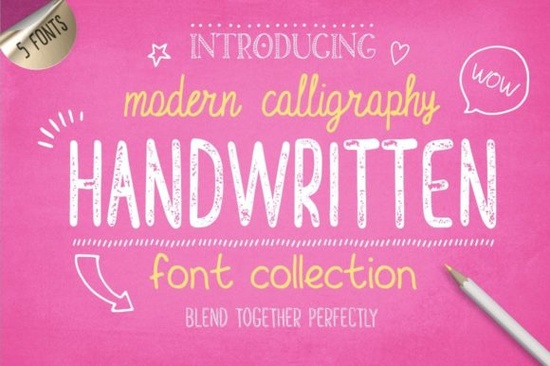
Looking for a set of hand-drawn typefaces that actually work together? The Handwritten Font Collection on Creative Fabrica gives you 5 hand-drawn fonts plus 5 alternative styles all designed to pair naturally with each other. It's a practical bundle for anyone who creates logos, greeting cards, t-shirt designs, posters, or branding materials. I've been working through this package, and here's what you should know before buying it.
What Exactly Comes in This Font Bundle?
This isn't just a handful of random fonts thrown together. Julia, the designer, built each typeface to complement the others. The package includes:
- English Castles A sleek, slim script font that pairs well with the other styles in the collection.
- Windsor Great Park A hand-drawn uppercase sans serif, plus two variations: one with added volume, and an italic version with that same weight.
- Fish and Chips A playful, cute hand-lettering font. Great for casual or whimsical designs.
- Worcestershire Sauce An uppercase display font with a chalkboard-friendly "Press" variant included.
- Cornish Pasty A hollow, hand-drawn font with two stylistic alternates: one with strip details, one with dotted decoration.
Who Is This Handwritten Font Pack For?
If you sell print-on-demand products, run a small business, or design greeting cards and invitations, this bundle covers a lot of ground. The fonts work for:
- Logo and branding work especially if you want that organic, handcrafted look
- Greeting cards and invitations the stylistic alternates add personality
- T-shirt and case designs clean enough to read at different sizes
- Posters and chalkboard art the chalkboard-specific variant handles this well
- Social media graphics mix and match fonts for headers, quotes, and captions
The variety here is the real value. Instead of buying one script font and one display font separately, you get a cohesive set. If you've ever used a flowing script font alongside a playful handwritten style, you already know how important it is for the fonts to feel like they belong together.
How Does It Compare to Other Handwritten Font Bundles?
Creative Fabrica has no shortage of handwritten and script fonts. Some lean more calligraphic, like an elegant calligraphy option, while others are bold and decorative, similar to a thick display font style. What makes this collection different is the range within one package. You get a slim script, a bold sans serif, a playful hand-lettered font, a chalkboard display font, and a hollow decorative font all from the same designer with a consistent hand-drawn feel.
That said, if you mainly need a rhinestone-ready cursive style, something like a cursive rhinestone template font might be a better fit. This collection is broader in scope, which is great if you need variety but less ideal if you only need one specific style.
Are the 105 Hand-Drawn Elements Actually Useful?
Yes, and here's why: they were designed for these fonts. That's a small detail that matters a lot. Free element packs you find online often look out of place when combined with specific typefaces. These elements share the same hand-drawn texture, so they blend naturally into layouts using the fonts from this bundle. You get them in vector and raster formats, giving you full editing control.
Things to Keep in Mind Before You Buy
- Language support: These fonts are designed for English characters. If you need extended Latin or other language support, verify before purchasing.
- Test before committing: Try previewing your actual text on the product page to see how each font looks with your specific words and layout needs.
Quick Checklist Before You Start Designing
- Pair the slim script with the uppercase sans serif for balanced layouts
- Use the chalkboard variant specifically for menu boards, café signs, or rustic posters
- Experiment with the hollow font's stylistic alternates the strip and dot versions add a lot of character to cards and posters